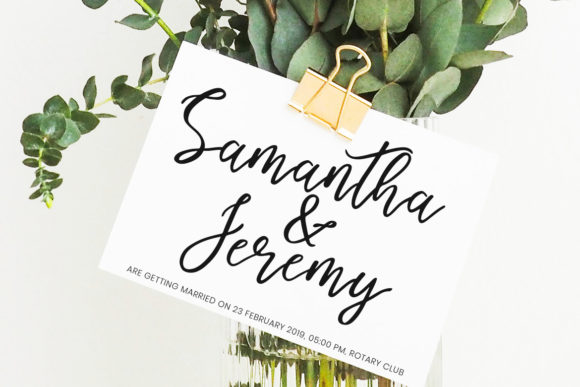
About Endestry Font
Endestry is a sweet, flirty, bouncy and smooth modern calligraphy script font. It has a personal touch which will give an amazing look to your designs.
It’s perfect for branding projects, logos, wedding designs, social media posts, advertisements, product packaging, product designs, label, photography, watermarks, invitations, stationery and any other project that need a handwriting feel.